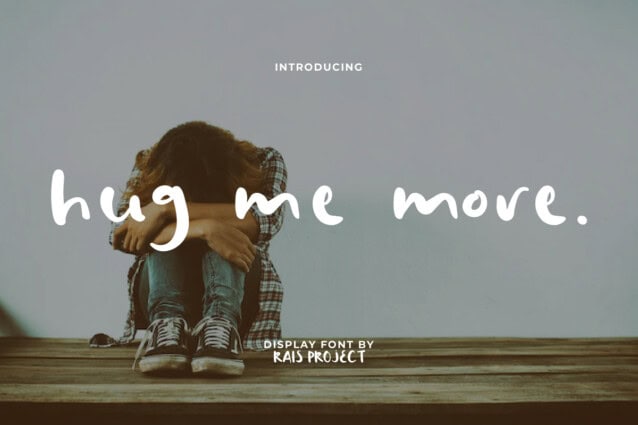
Hug Me More Handwritten Font
Hug Me More Handwritten Font is a modern fluffy playful comic bold display font with unique cute shape. It will makes you feel excited! It will be good for any designs, such as advertisement, brand logo, cover, custom design, flyer, greeting card, invitation, magazine, menu, poster, product packaging, quote, signage, web page, and more!